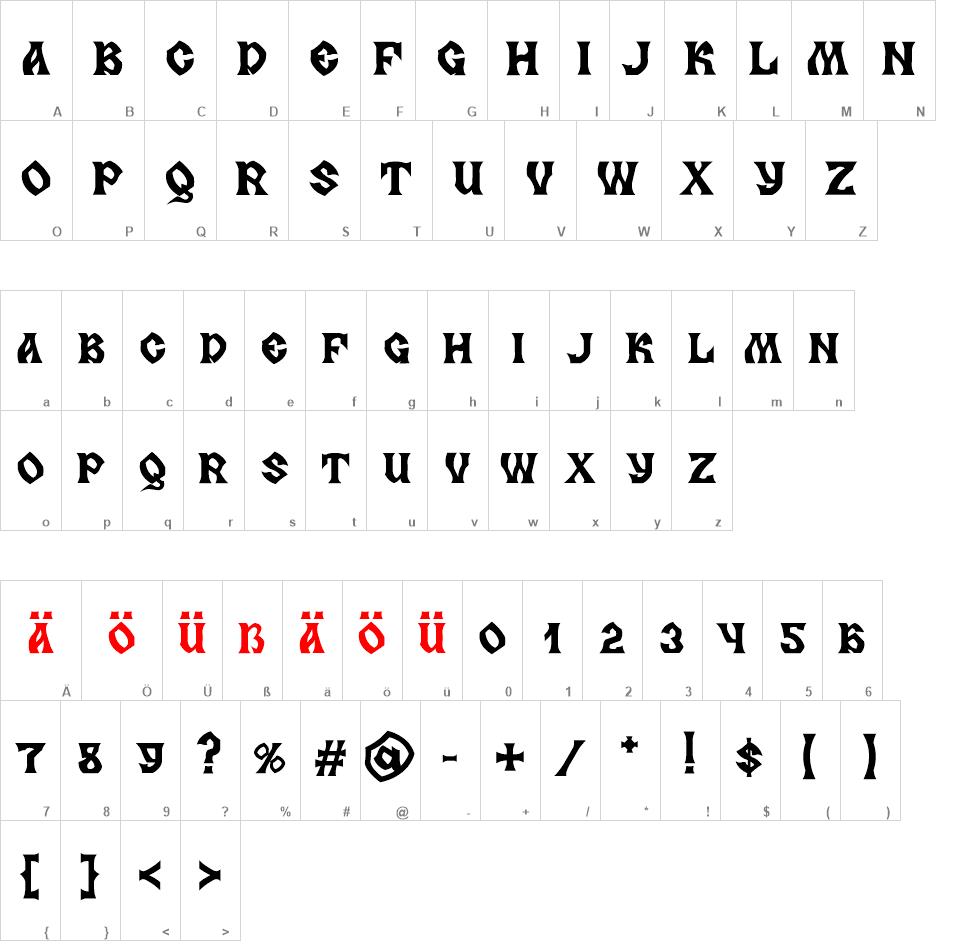
MB Slavonic Minsk
Incl. English, European and Cyrillic letters and Numbers. Kerning pairs are included. Both small and large size are well readable. Manually vectorized from hand-drawing, so may be scaled to extra large size without quality loss.